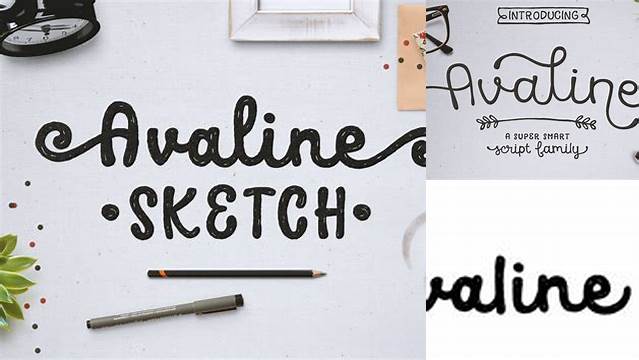
Aveline Script Sketch Font is a font that is unique because it combines elegance and a hand-drawn feel, guys! It is a fantastic resource for designers and creatives who want to add a personal and authentic touch to their projects. This font gives your designs character and flair with its flowing lines and sketched texture, making them stand out and grab people's attention. In this article, we're going to dive deep into what makes the Avaline Script Sketch Font special, where you can download it for free, and how you can use it in all sorts of cool projects. Whether you're working on branding, invitations, or web design, this font can really help you create something that looks amazing and unique. So, let’s explore the ins and outs of Avaline Script Sketch Font and how you can make the most of it.
The beauty of Aveline Script Sketch Font lies in its ability to bridge the gap between polished design and the warmth of handmade artistry. The sketched texture adds a layer of depth and visual interest, preventing the font from appearing too sterile or generic. This makes it particularly effective for projects where you want to convey a sense of authenticity, creativity, or personal connection. Think about using it for wedding invitations, where the handcrafted feel can add a touch of romance and intimacy, or for branding materials for a boutique or artisanal business, where it can reinforce the brand’s unique identity and values. The font’s versatility also extends to digital applications, such as website headers and social media graphics, where it can help to create a visually engaging and memorable experience for your audience. By understanding the nuances of Avaline Script Sketch Font and its potential applications, you can elevate your designs and create a lasting impression. So, let's jump into more details about this font and how to get your hands on it!
One of the key reasons why Aveline Script Sketch Font is so popular is its adaptability. It works well in a variety of design contexts, from print to digital, and can be used for both headlines and body text. This flexibility allows designers to maintain a consistent visual style across different elements of a project, ensuring a cohesive and professional look. For example, you could use Avaline Script Sketch Font for the main title of a poster and then use a complementary sans-serif font for the body text to create a balanced and visually appealing layout. The font’s readability, even with its sketched texture, makes it a practical choice for longer pieces of text as well, such as quotes or captions. Furthermore, Aveline Script Sketch Font pairs well with a wide range of other fonts, giving you even more creative freedom to experiment and develop your unique design aesthetic. Whether you're a seasoned designer or just starting out, this font offers a wealth of possibilities for expressing your creativity and bringing your ideas to life.
What Makes Avaline Script Sketch Font Special?
Unique Hand-Drawn Aesthetic
Aveline Script Sketch Font stands out with its unique hand-drawn aesthetic, which brings a personal and artistic touch to any project. Unlike typical clean and polished fonts, Avaline mimics the look of handwriting or sketching, giving it a natural and informal feel. This makes it perfect for projects where you want to convey authenticity and creativity. Imagine using it for a travel blog, where the font's unique style can evoke a sense of adventure and personal experience. Or, consider using it for a handmade goods website, where it reinforces the artisanal quality of the products. The hand-drawn look adds character and charm, making your designs more engaging and memorable.
When you look at Aveline Script Sketch Font, you'll notice the subtle imperfections and variations in the strokes, which are characteristic of hand-drawn fonts. These details are what make it so appealing and different from more standardized fonts. For example, the slightly uneven baseline and the varying thickness of the lines create a dynamic and lively appearance. This can be particularly effective in branding materials, where you want to create a unique identity that stands out from the competition. Whether you're designing a logo, business cards, or a website, Avaline Script Sketch Font can help you communicate your brand's personality and values in a visually compelling way. The font's distinct style also makes it a great choice for social media graphics, where you need to capture attention quickly and convey a sense of originality.
Moreover, the versatility of Aveline Script Sketch Font's hand-drawn aesthetic means it can be adapted to a wide range of design styles and themes. It works equally well in both modern and vintage designs, adding a touch of warmth and personality to any project. For example, you could use it in a minimalist design to add a subtle hint of character, or you could combine it with other hand-drawn elements to create a cohesive and artistic look. The font’s unique style also makes it a great choice for projects that require a personal touch, such as thank-you cards, invitations, and personalized gifts. By incorporating Avaline Script Sketch Font into your designs, you can create a lasting impression and connect with your audience on a deeper level.
Versatility in Design Projects
Versatility is a key feature of Avaline Script Sketch Font, making it suitable for a wide range of design projects. This font is not just limited to one specific style or application; it can be used effectively in various contexts, from branding and marketing materials to personal projects and creative endeavors. Its adaptability allows designers to explore different creative avenues and achieve unique results. For instance, you can use Avaline Script Sketch Font for logos, website headers, social media graphics, invitations, posters, and more. This makes it a valuable asset in any designer's toolkit, offering endless possibilities for creative expression.
The reason for Avaline Script Sketch Font’s versatility lies in its balanced design. It has a friendly and approachable feel, thanks to its hand-drawn style, but it also maintains a level of legibility and professionalism. This balance is crucial for ensuring that the font can be used in both formal and informal settings. For example, you could use it for the title of a formal event invitation to add a touch of elegance, or you could use it for a casual blog post to create a welcoming and personal atmosphere. The font's adaptability extends to different media as well; it looks great in print and on screen, making it a reliable choice for any project. Whether you’re designing for a business or creating something for personal use, Avaline Script Sketch Font can help you achieve the desired look and feel.
Furthermore, the versatility of Avaline Script Sketch Font is enhanced by its ability to pair well with other fonts. It can be combined with sans-serif fonts for a modern and clean look, or with serif fonts for a more traditional and classic feel. This flexibility allows you to create a customized typography palette that perfectly suits your project’s needs. For example, you could use Avaline Script Sketch Font for headings and a simple sans-serif font for body text to create a balanced and readable design. The font’s unique style also makes it a great choice for adding visual interest to otherwise plain designs. By experimenting with different combinations and applications, you can unlock the full potential of Avaline Script Sketch Font and create stunning designs that stand out.
Enhances Readability with Style
Readability is paramount in design, and Avaline Script Sketch Font strikes a unique balance by enhancing readability while maintaining a stylish and artistic appearance. Many script fonts sacrifice clarity for aesthetics, but Avaline manages to offer both. This makes it a practical choice for various applications, from body text to headings, where clear communication is essential. The font's design ensures that each character is distinct and easily recognizable, even with its hand-drawn texture. This is crucial for ensuring that your message is conveyed effectively, whether you’re designing a website, a poster, or a brochure.
The key to Avaline Script Sketch Font’s readability lies in its carefully crafted letterforms. The spacing between letters and words is optimized to prevent crowding, and the strokes are designed to be clear and consistent. While the font has a sketched appearance, it avoids excessive ornamentation that could obscure the text. This makes it suitable for longer blocks of text, where legibility is particularly important. For example, you could use Avaline Script Sketch Font for captions, quotes, or even short paragraphs in a design without compromising readability. This is a significant advantage, as many script fonts are best suited for headlines and short titles only.
Moreover, Avaline Script Sketch Font's style enhances readability by adding visual interest and personality to the text. The hand-drawn texture makes the font more engaging and less monotonous than standard fonts. This can help to capture the reader’s attention and keep them interested in the content. For example, you could use Avaline Script Sketch Font for the headings and subheadings of a blog post to break up the text and make it more visually appealing. The font’s unique style can also make your designs stand out and create a memorable impression. By combining readability with style, Avaline Script Sketch Font offers a versatile and effective solution for various design challenges.
Where to Download Avaline Script Sketch Font for Free
Reliable Font Download Websites
Finding a reliable source to download Avaline Script Sketch Font for free is essential to ensure you are getting a safe and legitimate file. There are several reputable websites where you can find free fonts, but it's important to exercise caution and choose sites known for their credibility. These websites often have licensing information clearly displayed, so you know how you can use the font. They also typically scan their files for viruses and malware, providing a safer download experience. Some of the best options include websites like FontSpace, DaFont, and MyFonts, which offer a wide variety of fonts for personal and commercial use.
When you visit these reliable font download websites, you can usually search for “Aveline Script Sketch Font” directly in the search bar. Once you find the font, look for details about the license to make sure it fits your project's needs. Many free fonts come with a personal use license, which means you can use them for non-commercial projects. If you plan to use the font for business purposes, make sure the license allows for commercial use. Additionally, check the reviews and ratings from other users to ensure the font is high-quality and the download process is smooth. Taking these steps will help you avoid potential issues and make the most of the free font.
Furthermore, downloading Avaline Script Sketch Font from reliable sources helps support the font creators. Many font designers offer free versions of their fonts as a way to showcase their work and encourage users to purchase their premium fonts or other design assets. By using reputable websites, you can ensure that the designers receive proper credit for their work and that you are adhering to the licensing terms. This contributes to a healthy design community and encourages the creation of more high-quality fonts. So, always prioritize downloading from trusted sources to protect yourself and support the designers.
Checking Font License Agreements
Checking font license agreements is a crucial step before using any font, including Avaline Script Sketch Font, in your projects. A font license agreement outlines the terms and conditions of how you can use the font, including whether it's free for personal use, commercial use, or both. Understanding these terms ensures you comply with the font creator's requirements and avoid potential legal issues. Ignoring the license agreement can lead to copyright infringement, which can result in costly fines or other legal consequences. Therefore, always take the time to read and understand the license agreement before incorporating a font into your designs.
The key aspects of a font license agreement to look for include the usage rights, restrictions, and any specific requirements. The license will typically state whether you can use the font for personal projects, commercial projects, or both. Personal use licenses usually cover non-profit or hobbyist projects, while commercial use licenses allow you to use the font in projects that generate revenue. Additionally, the license may specify restrictions on modifying the font, embedding it in digital documents, or redistributing it. Some licenses may also require you to credit the font designer in your project. By carefully reviewing these details, you can ensure that you are using the font in accordance with the license terms.
Moreover, understanding font license agreements helps you make informed decisions about which fonts to use for your projects. If you are working on a commercial project, you'll want to ensure that the font you choose has a commercial use license. If you are unsure about any aspect of the license, it's always best to contact the font designer or the website from which you downloaded the font for clarification. This proactive approach can save you from potential legal issues and ensure that you are using the font legally and ethically. By making font license agreements a part of your design workflow, you can protect yourself and respect the rights of the font creators.
Avoiding Copyright Issues
Avoiding copyright issues is essential when downloading and using fonts, including Avaline Script Sketch Font. Copyright protects the creative work of font designers, and using a font without the proper license can lead to legal repercussions. To ensure you're using fonts legally, it's crucial to download them from reputable sources and carefully review the licensing terms. Many free fonts come with specific restrictions, such as limitations on commercial use or requirements for attribution. By understanding and adhering to copyright laws, you can protect yourself from potential legal problems and support the creative community.
One of the best ways to avoid copyright issues is to download Avaline Script Sketch Font from reliable websites that clearly state the font's licensing terms. These websites often provide detailed information about whether the font is free for personal use, commercial use, or both. Additionally, they may offer different licensing options depending on your needs, such as extended licenses for embedding the font in software or apps. Before downloading any font, take the time to read the licensing agreement carefully and make sure it aligns with your intended use. If you're unsure about any aspect of the license, it's always a good idea to contact the font designer or the website for clarification.
Furthermore, being proactive about copyright issues can save you time and money in the long run. If you accidentally use a font in violation of its license, you may be required to pay a licensing fee or even face legal action. To avoid these issues, keep a record of the fonts you've downloaded and their corresponding licenses. This will help you stay organized and ensure that you're using fonts legally in all of your projects. By making copyright awareness a part of your design process, you can create beautiful and original designs while respecting the rights of font creators. So, always be diligent and informed when it comes to font licensing.
Creative Ways to Use Avaline Script Sketch Font
Branding and Logo Design
Branding and logo design are areas where Avaline Script Sketch Font can truly shine, adding a touch of personality and uniqueness to your visual identity. A well-chosen font can significantly impact how your brand is perceived, and Avaline's hand-drawn style can help convey authenticity, creativity, and a personal touch. This font is particularly effective for businesses that want to project a friendly and approachable image, such as boutiques, artisanal shops, and creative agencies. By incorporating Avaline Script Sketch Font into your logo and branding materials, you can create a memorable and distinctive identity that resonates with your target audience.
When using Avaline Script Sketch Font in logo design, consider how it reflects your brand's values and personality. The font's informal and artistic style can be a great fit for brands that emphasize creativity, craftsmanship, or a personal connection with their customers. For example, a handmade jewelry business could use Avaline Script Sketch Font in their logo to highlight the artisanal nature of their products. Similarly, a coffee shop could use the font to create a warm and inviting atmosphere. Remember to pair the font with complementary colors and graphics to create a cohesive and visually appealing brand identity. The goal is to create a logo that is not only aesthetically pleasing but also effectively communicates your brand's message.
Moreover, Avaline Script Sketch Font can enhance branding materials beyond just the logo. Use it in your business cards, website headers, social media graphics, and marketing collateral to maintain a consistent brand image. The font's unique style can help your brand stand out in a crowded marketplace and make a lasting impression on your customers. For instance, you could use Avaline Script Sketch Font for the headings on your website and pair it with a clean sans-serif font for the body text to create a balanced and readable design. By incorporating Avaline Script Sketch Font thoughtfully across your branding, you can create a strong and cohesive visual identity that supports your business goals.
Invitations and Cards
Invitations and cards are perfect canvases for Avaline Script Sketch Font, where its elegant and personal touch can elevate your message. Whether you're designing wedding invitations, birthday cards, or thank-you notes, this font adds a handcrafted feel that makes your message more special. The unique, hand-drawn aesthetic of Avaline Script Sketch Font brings a warmth and authenticity that can't be replicated by more traditional fonts. This makes it an excellent choice for occasions where you want to convey a personal and heartfelt sentiment. By using Avaline Script Sketch Font, you can create invitations and cards that are both beautiful and meaningful.
When designing invitations with Avaline Script Sketch Font, consider the overall tone and theme of the event. The font's informal yet elegant style makes it versatile enough for both casual and formal occasions. For a wedding invitation, you might pair Avaline Script Sketch Font with delicate floral illustrations and a soft color palette to create a romantic and sophisticated design. For a birthday party invitation, you could use a bolder color scheme and playful graphics to match the festive atmosphere. Experiment with different layouts and typography arrangements to create a design that truly reflects the spirit of the event. Remember, the goal is to create an invitation that not only provides essential information but also captures the excitement and anticipation of the occasion.
Furthermore, Avaline Script Sketch Font adds a personal touch to cards for any occasion. Whether you're writing a thank-you note, a sympathy card, or a holiday greeting, the font's hand-drawn style can help convey sincerity and warmth. Consider using Avaline Script Sketch Font for the main message or headline and pairing it with a simple sans-serif font for any additional text. This creates a balanced and readable design while still highlighting the font's unique charm. You can also incorporate hand-drawn elements or illustrations to complement the font and create a cohesive and personalized card. By using Avaline Script Sketch Font, you can create cards that truly express your sentiments and leave a lasting impression on the recipient.
Website Design and Social Media Graphics
Website design and social media graphics benefit significantly from the unique style of Avaline Script Sketch Font, which can help create a visually engaging and memorable online presence. In the digital world, where first impressions are crucial, using a distinctive font like Avaline can set your brand apart. The hand-drawn aesthetic adds a personal touch that makes your content feel more authentic and approachable. This is particularly valuable for businesses and individuals looking to build a strong online connection with their audience. By incorporating Avaline Script Sketch Font into your website and social media graphics, you can create a consistent and compelling visual identity that resonates with your target audience.
When using Avaline Script Sketch Font in website design, consider how it complements your overall design and branding. The font's versatility makes it suitable for various applications, from website headers and banners to call-to-action buttons and testimonials. Use it strategically to highlight key messages and create visual interest. For example, you could use Avaline Script Sketch Font for the headings on your blog posts to draw readers in, or you could use it for the navigation menu to add a touch of personality. Remember to pair the font with a readable body font to ensure that your website content is both visually appealing and easy to read. The goal is to create a website that not only looks great but also provides a seamless and enjoyable user experience.
Moreover, Avaline Script Sketch Font can enhance your social media graphics by making them stand out in a crowded feed. Use it for quotes, announcements, and promotional content to capture attention and convey your message effectively. The font's unique style can help your social media posts feel more personal and engaging, encouraging your followers to interact with your content. Consider using Avaline Script Sketch Font in combination with eye-catching images and a consistent color palette to create a cohesive and visually appealing social media presence. By incorporating Avaline Script Sketch Font thoughtfully into your online content, you can build a strong brand identity and connect with your audience on a deeper level.
In conclusion, Aveline Script Sketch Font is a fantastic resource for designers and creatives looking to add a unique and personal touch to their projects. Its hand-drawn aesthetic, versatility, and readability make it suitable for a wide range of applications, from branding and logo design to invitations and website graphics. By downloading the font from reliable sources and understanding the licensing terms, you can use it safely and legally in your creative endeavors. Whether you’re a seasoned designer or just starting out, Aveline Script Sketch Font offers endless possibilities for expressing your creativity and creating designs that stand out.
Remember, the key to making the most of Aveline Script Sketch Font is to use it thoughtfully and strategically. Consider how it complements your overall design and branding, and experiment with different combinations and applications to achieve the desired look and feel. Don't be afraid to mix it with other fonts and design elements to create something truly unique. With its charming and versatile style, Aveline Script Sketch Font can help you elevate your designs and connect with your audience in a meaningful way. So, download it today and start exploring the creative possibilities!
Finally, stay informed about new fonts and design resources to continue expanding your creative toolkit. The world of typography is constantly evolving, and there are always new and exciting fonts to discover. By keeping up with the latest trends and resources, you can stay ahead of the curve and create fresh and innovative designs. Aveline Script Sketch Font is just one example of the many valuable tools available to designers, so keep exploring and experimenting to find the perfect fonts for your projects. Happy designing!